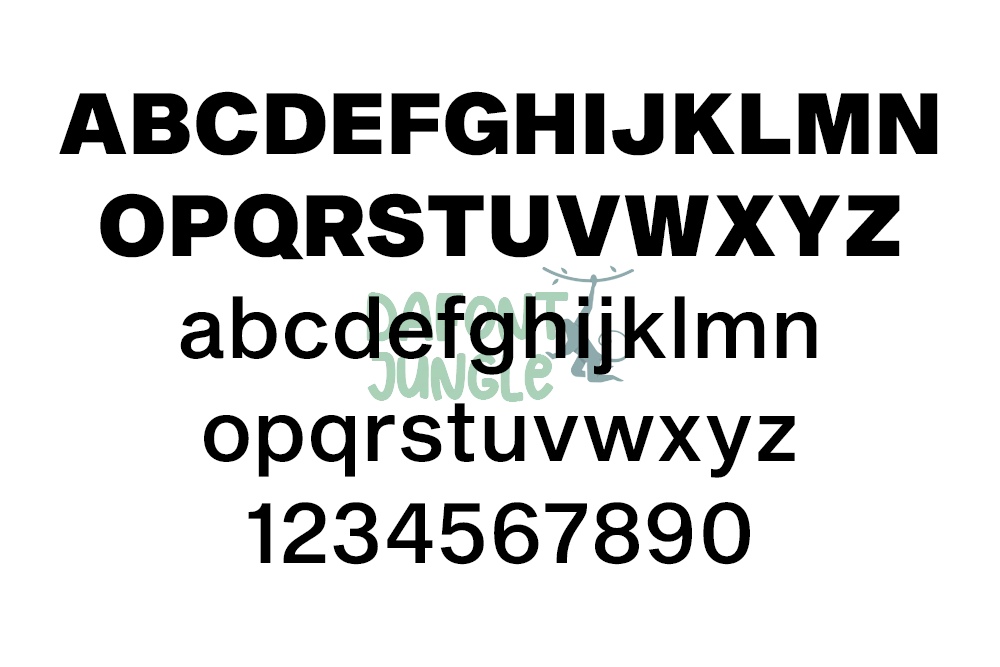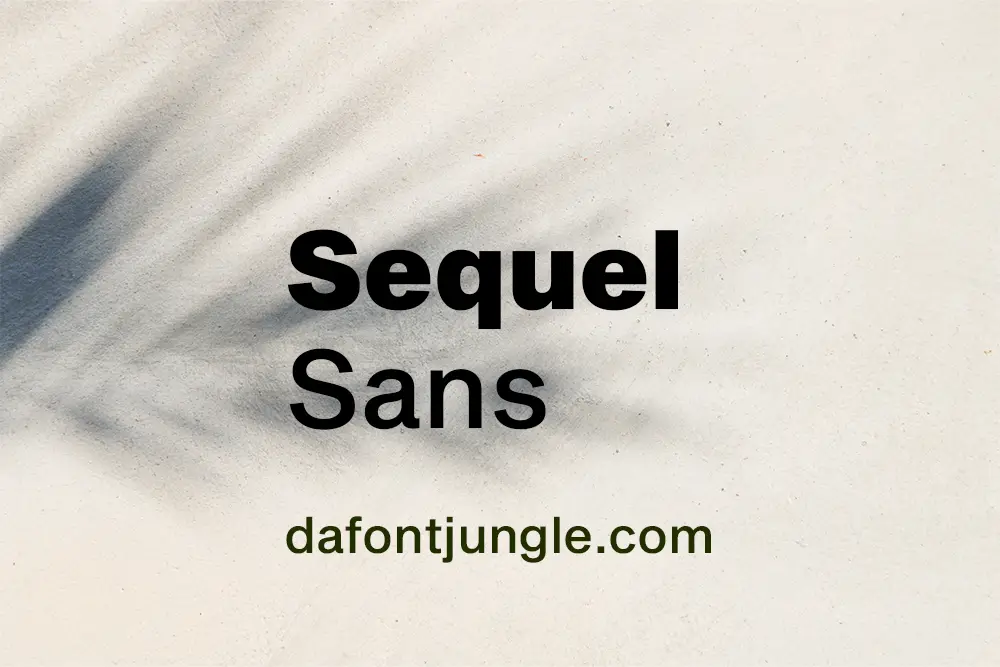
Sequel Sans – Clean and Modern Sans Serif Font
Sequel Sans is a sharp and flexible sans serif font that brings a modern look to any project. With 8 weights and matching italics, it fits both digital and print design. You can use it for websites, branding, packaging, or editorial work.
Because of its neutral tone, Sequel Sans blends in perfectly without losing its personality. It stays readable at any size, which makes it ideal for headlines and body text.
- Offers 8 weights for full creative control
- Includes italics for added style
- Suitable for both large and small text
- Balances modern style with simplicity